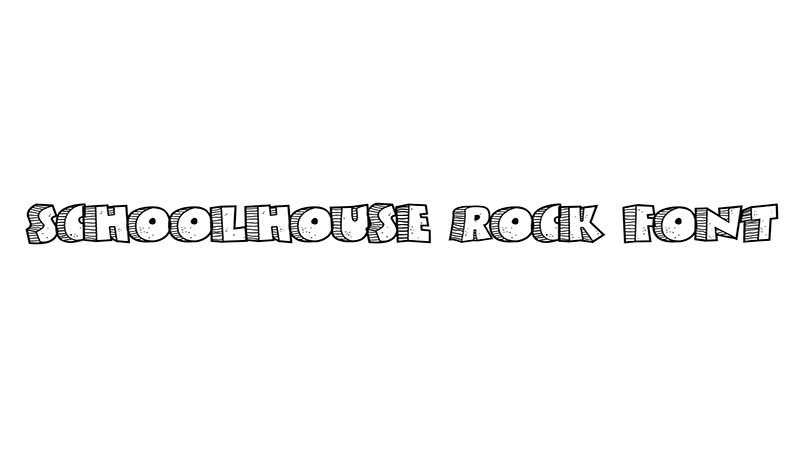
Schoolhouse rock logo is designed delicate with a great font that is stoney billy, it’s created by fontalicious fonts.
Stoney billy by fontalicious fonts is a font based on the title logo from the tv show schoolhouse rock! If you want to download the full font family of rockwell font, then you have to buy the font. Basically, it is an animated musical is an american intermediate programming series of educational short films.
Tribal schoolhouse is the perfect font for all your fun designs. If you want to create professional printout, you should consider a commercial font. Schoolhouse rock is an american tv show programming series of animated musicals.
You can use the tribal schoolhouse to create interesting designs, covers, shop and store name and logos. 66 professional school house rock fonts to download. Schoolhouse rock font is a typeface based on the title logo from the tv show.
Size schoolhouse rock by sarah vojnovich. Edited on sep 03, 2010 at 13:41 by rodolphe. Is an american interstitial programming series of animated musical educational short films (and later, videos) that aired during the saturday morning children’s programming block on the u.s.